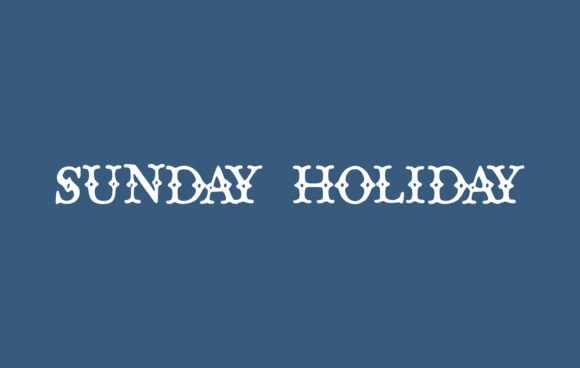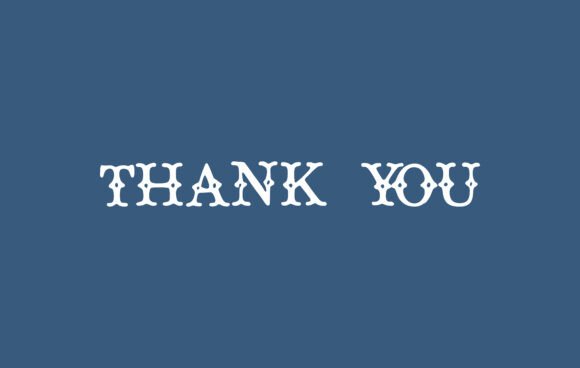
Unleash Your Creativity with Boldvortex Font: A Modern-Meets-Vintage Serif Font
Are you tired of using the same old fonts for your creative projects? Look no further than Boldvortex Font, a bold serif font that combines unconventional letterforms with quirky accents to give your designs a modern-meets-vintage edge. In this article, we’ll dive into the features and benefits of Boldvortex Font, and explore how it can elevate your branding, logos, and editorial headlines.
What is Boldvortex Font?
Boldvortex Font is a unique and eye-catching serif font that defies traditional typography norms. Its bold and quirky design makes it perfect for creative professionals looking to add a touch of personality to their work. With its unconventional letterforms and accents, Boldvortex Font is sure to make your designs stand out from the crowd.
Key Features of Boldvortex Font
- Bold and Quirky Design: Boldvortex Font features a bold and quirky design that adds a touch of personality to any project.
- Unconventional Letterforms: The font’s unconventional letterforms give it a unique and eye-catching edge.
- Modern-Meets-Vintage Edge: Boldvortex Font combines modern and vintage elements to create a truly unique typography experience.
- Perfect for Creative Branding: The font’s bold and quirky design makes it perfect for creative branding, logos, and editorial headlines.
Benefits of Using Boldvortex Font
So why choose Boldvortex Font for your next project? Here are just a few benefits of using this unique font:
- Adds Personality to Your Designs: Boldvortex Font adds a touch of personality to any project, making it perfect for creative professionals looking to stand out.
- Versatile: The font’s bold and quirky design makes it versatile and suitable for a wide range of projects, from branding and logos to editorial headlines.
- Easy to Read: Despite its bold and quirky design, Boldvortex Font is easy to read, making it perfect for use in editorial headlines and other large-format text.
How to Use Boldvortex Font in Your Designs
Ready to unleash your creativity with Boldvortex Font? Here are a few tips for incorporating the font into your designs:
- Use it as a Headline Font: Boldvortex Font is perfect for use in editorial headlines, where its bold and quirky design can really make an impact.
- Pair it with Other Fonts: Experiment with pairing Boldvortex Font with other fonts to create a unique and eye-catching typography experience.
- Use it for Branding and Logos: The font’s bold and quirky design makes it perfect for use in branding and logos, where it can help to add personality and flair.
In conclusion, Boldvortex Font is a unique and eye-catching serif font that combines unconventional letterforms with quirky accents to give your designs a modern-meets-vintage edge. With its bold and quirky design, versatility, and ease of use, Boldvortex Font is perfect for creative professionals looking to add a touch of personality to their work. Whether you’re designing branding, logos, or editorial headlines, Boldvortex Font is sure to make your designs stand out from the crowd.